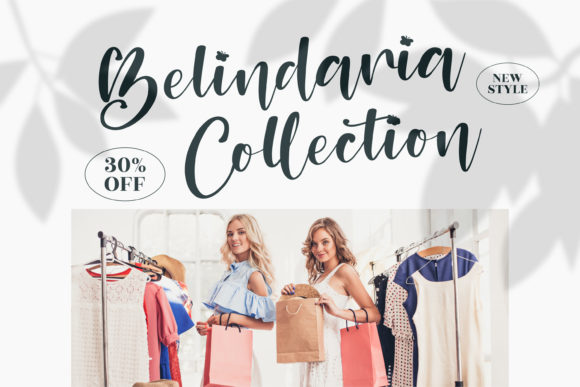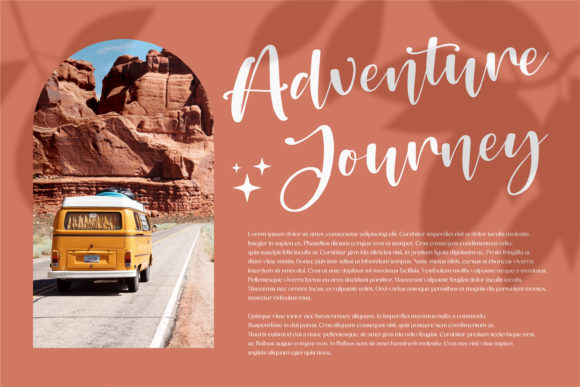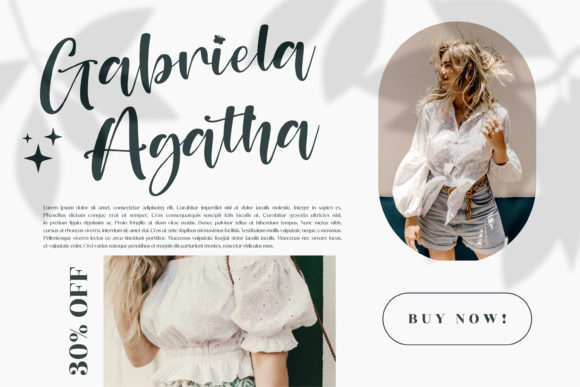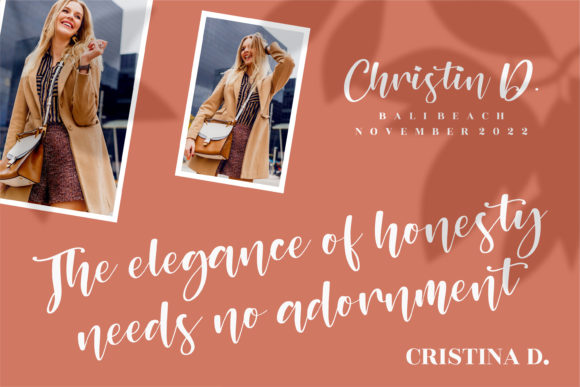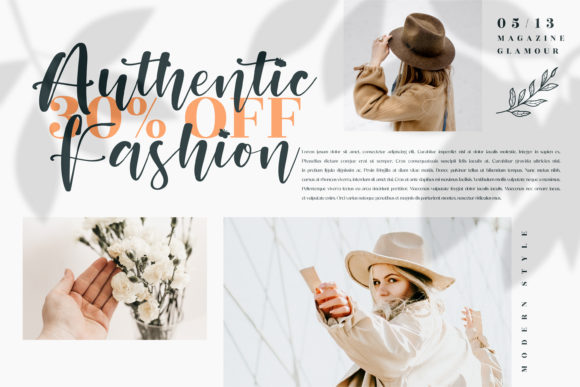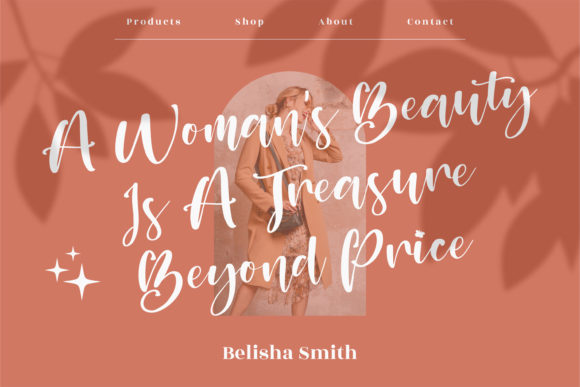
Discover the Magic of Better Spine Font
Have you ever been brainstorming ideas for a creative project, only to be stuck on finding the perfect font? We’ve all been there. As designers, we know how crucial the right typography is in making our work stand out. That’s why we’re excited to introduce you to Better Spine Font – a stunning script font that will elevate your designs to the next level.
Better Spine Font is more than just a pretty face; it’s a versatile tool that can be used for a wide range of projects, from elegant wedding invitations to beautiful stationery and eye-catching social media posts. Whether you’re a seasoned designer or just starting out, this font is a valuable addition to your toolkit, offering a unique and captivating style that’s sure to impress.
Better Spine Font Key Features
- Font Family: Better Spine Font is a custom-designed font family, available in various styles and weights.
- Unique Characteristics: Better Spine Font features a distinctive, hand-drawn aesthetic with varying line widths, giving it a unique and personalized touch.
Designer Review: Better Spine Font
Overall, I’m impressed with the Better Spine Font, but like any font, it’s not perfect. Here are my thoughts on what works well and what doesn’t.
- The font’s unique spine-like feature is both aesthetically pleasing and functional. It adds a touch of personality to any text.
- The font is highly legible, even at small font sizes, making it perfect for body text or headlines.
- The font’s bold and italic weights are well-designed and easy to read, even for those with visual impairments.
- The font’s more elaborate features, such as the spine-like design, can make it difficult to pair with certain backgrounds or color schemes.
- The font may not be suitable for use in large blocks of text, as the spine-like feature can start to feel repetitive and overwhelming.
- The font’s italics can be a bit difficult to read at very small font sizes, especially for those with visual impairments.
Overall, I think the Better Spine Font is a solid choice for designers looking for a unique and highly legible font. While it has some limitations, I believe it’s well worth the investment for the right projects.
Better Spine Font is ideal for:
- Book covers and titles
- Typography-based art and design
Alternatives to Better Spine Font
Open Sans is a clean, modern sans-serif font that works well for body text and headings. It’s a great choice for digital products and is highly legible at various font sizes. Open Sans is a more neutral font compared to Better Spine Font, which has a more unique, handwritten feel. Use Open Sans for a clean and minimalist aesthetic.
Montserrat is a geometric sans-serif font that’s perfect for urban and modern designs. It’s highly versatile and works well for both body text and headings. Montserrat has a more edgy feel compared to Better Spine Font, which is softer and more handwritten. Use Montserrat for a bold and modern aesthetic.